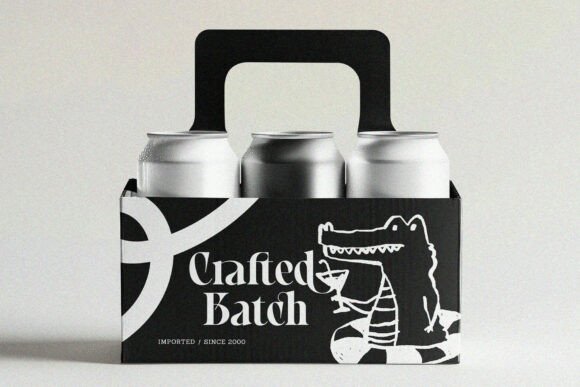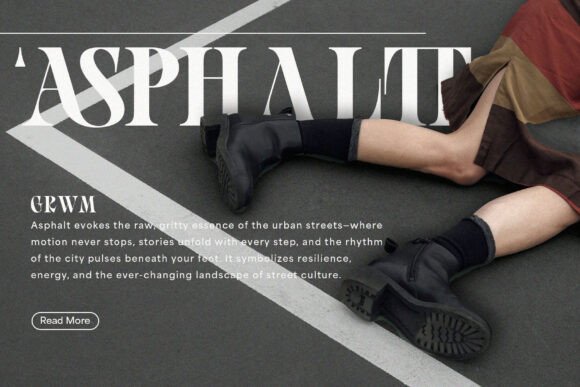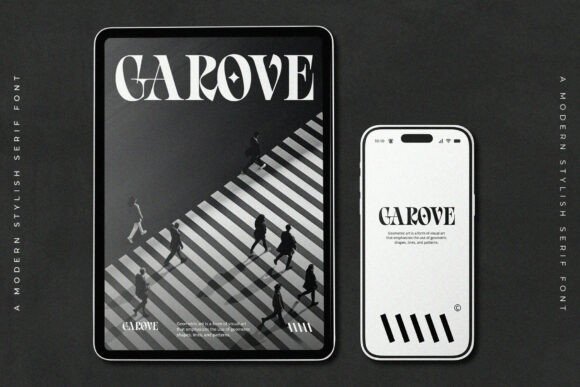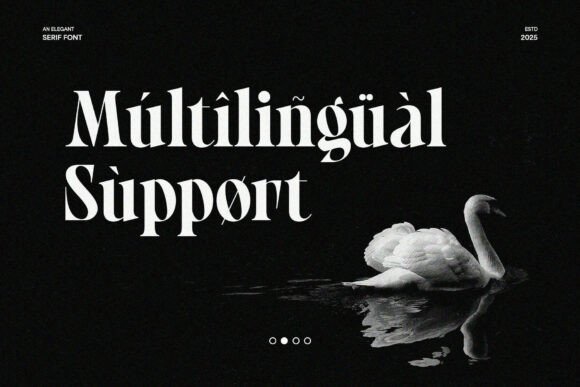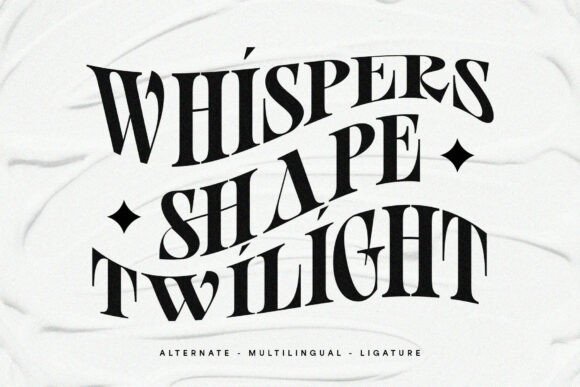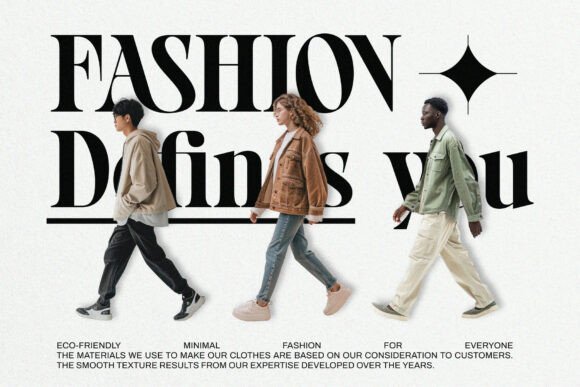
Gerisska Font: Elevate Your Design with Elegance and Sophistication
Are you looking for a font that exudes luxury, elegance, and modern sophistication? Look no further than Gerisska, a refined and stylish serif font designed to elevate your branding, editorial design, and visual identity projects. In this article, we’ll dive into the world of Gerisska, exploring its features, benefits, and uses, and why it’s the perfect choice for designers and crafters seeking to add a touch of class and exclusivity to their work.
Introducing Gerisska: A Timeless yet Modern Serif Font
Gerisska is a masterfully crafted serif font that seamlessly blends traditional elegance with contemporary flair. Its design is characterized by precise lines, gentle curves, and distinctive letterform proportions that give it a unique personality. The font’s creator has paid meticulous attention to detail, ensuring that every aspect of Gerisska, from its serifs to its ligatures, contributes to a harmonious and aesthetically pleasing visual experience.
Key Features of Gerisska Font
- Elegant Curves and Sharp Serifs: Gerisska’s curves are smooth and flowing, while its serifs are sharp and refined, creating a beautiful contrast that adds depth and sophistication to any design.
- Unique Letterform Proportions: The font’s letterforms are carefully proportioned to ensure optimal readability and visual appeal, making it perfect for both large display settings and smaller text sizes.
- Versatility: Gerisska is designed to be versatile, suitable for a wide range of applications, from luxury branding and editorial design to packaging, advertising, and more.
- Excellent Readability: The font’s design prioritizes readability, ensuring that your message is conveyed clearly and effectively across various media, including print and digital platforms.
Perfect for Luxury Branding and Editorial Design
Gerisska is specifically designed for projects that demand a high level of sophistication and elegance. Its refined features make it an ideal choice for:
- Luxury Branding: Establish your brand’s premium identity with Gerisska’s elegant and modern aesthetic.
- Editorial Design: Elevate your magazine, newspaper, or book designs with Gerisska’s classic yet contemporary style.
- Wedding Invitations: Add a touch of luxury and romance to your wedding invitations and stationery.
- Premium Packaging: Stand out in the market with Gerisska’s sophisticated and eye-catching typography.
- Fashion Advertising: Showcase your fashion brand’s style and exclusivity with Gerisska’s elegant and refined font.
What You Get with Gerisska Font
When you choose Gerisska, you’re not just getting a font – you’re getting a comprehensive design solution that includes:
- Multiple Font Weights: Ensure versatility in your designs with a range of font weights.
- Extensive Character Set: Access a wide range of characters, including ligatures, numerals, and punctuation.
Gerisska is more than just a font – it’s a design statement. With its elegant curves, sharp serifs, and unique letterform proportions, Gerisska offers a level of sophistication and refinement that’s hard to find in modern typography. Whether you’re a designer, craftsperson, or simply someone who appreciates beautiful design, Gerisska is the perfect choice for anyone looking to elevate their branding, editorial design, and visual identity projects. Experience the luxury and elegance of Gerisska today and discover a world of creative possibilities.